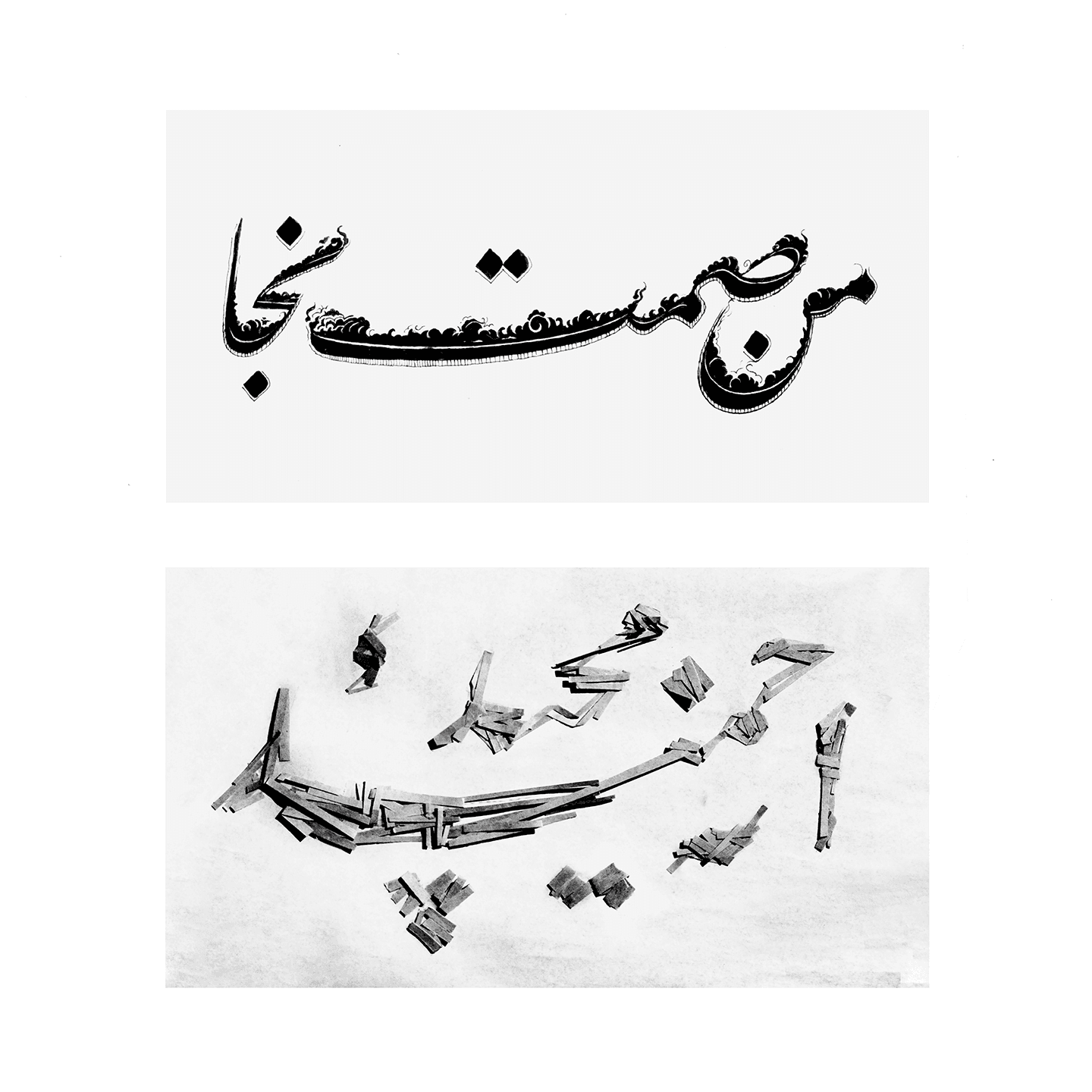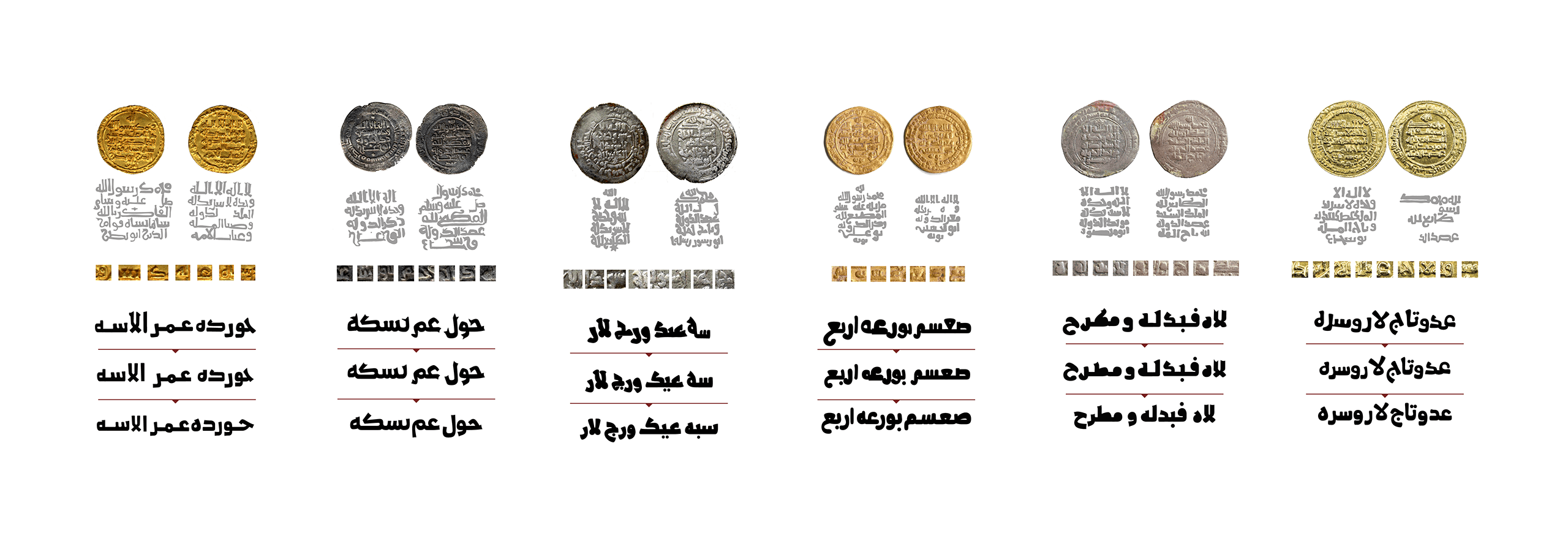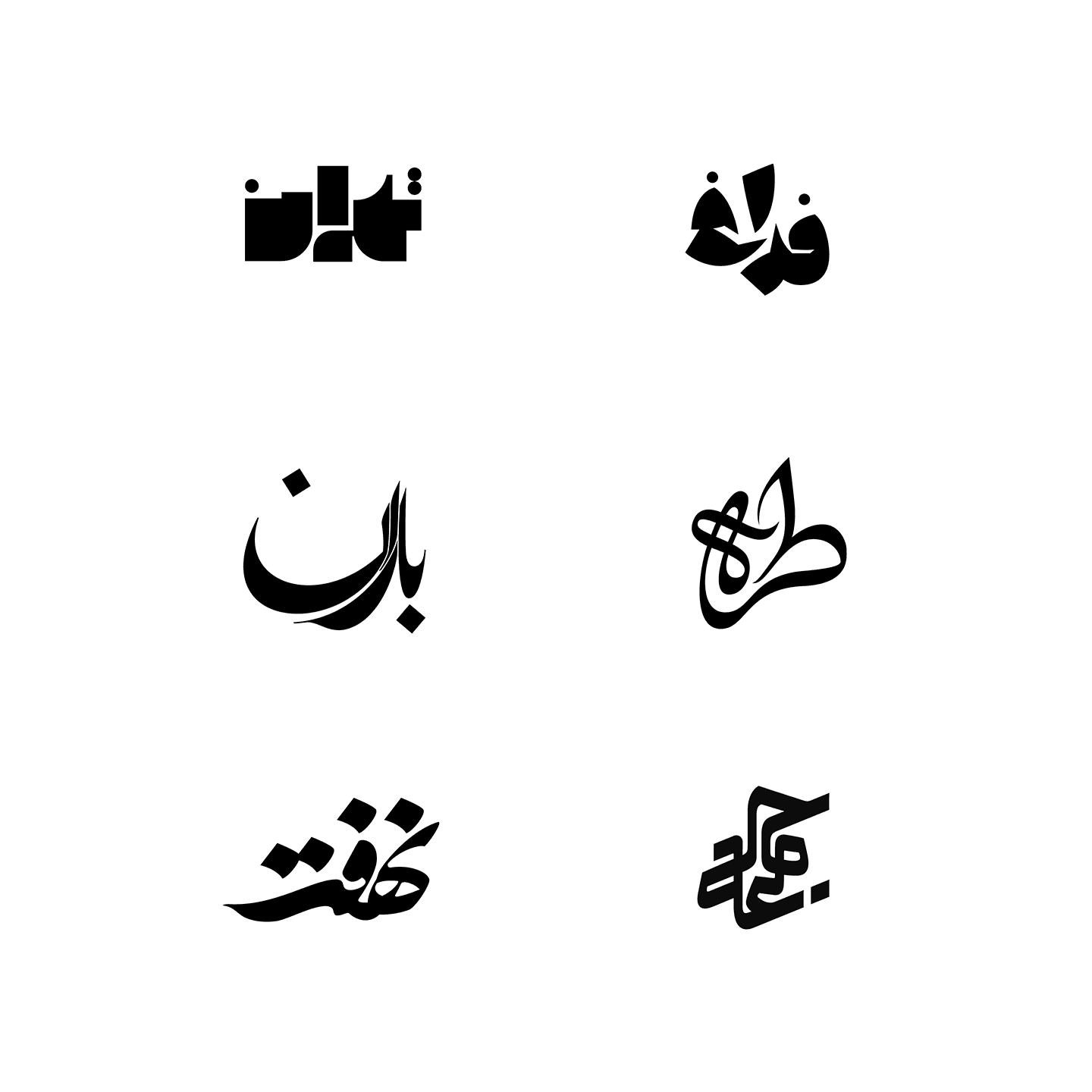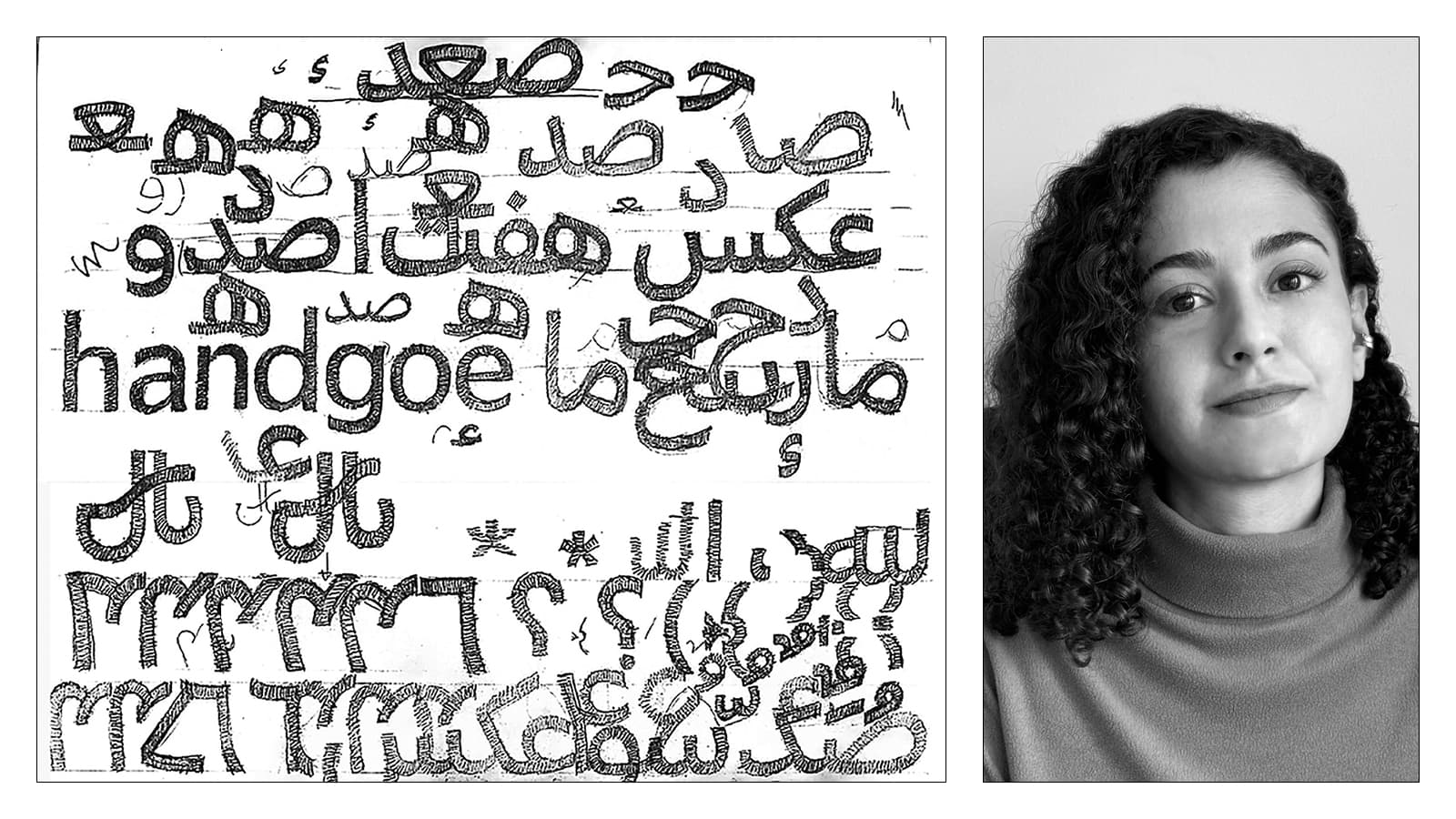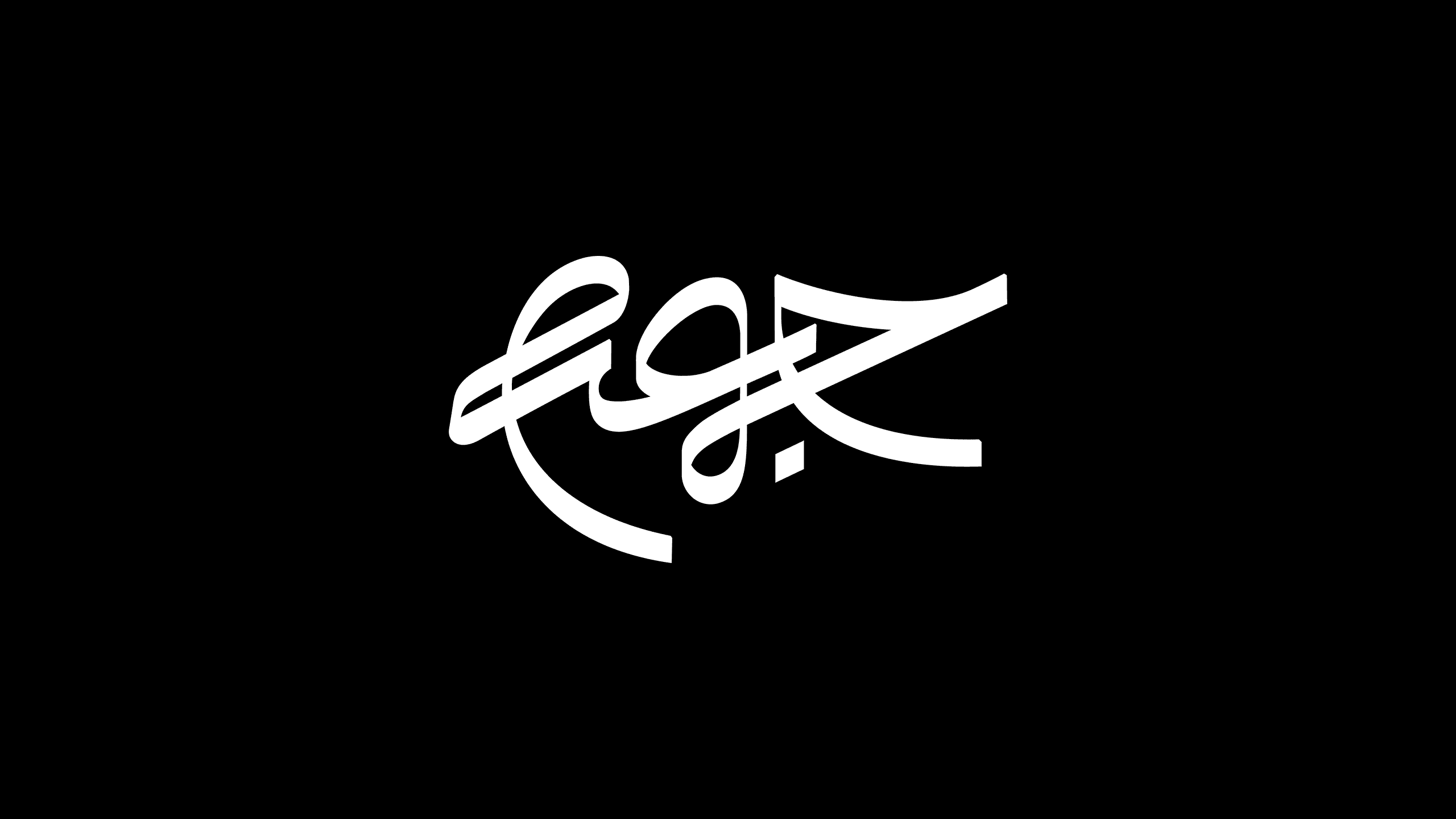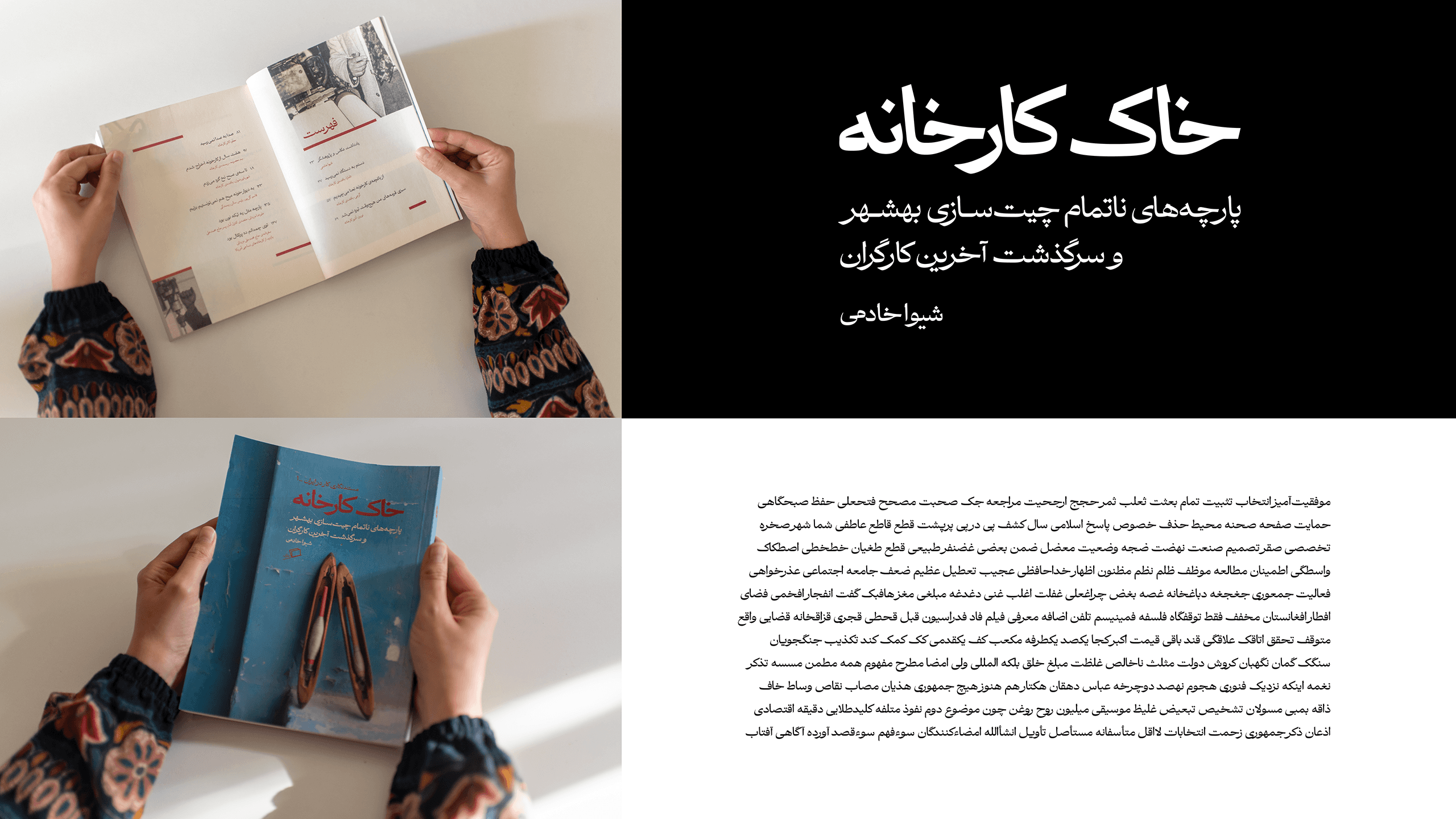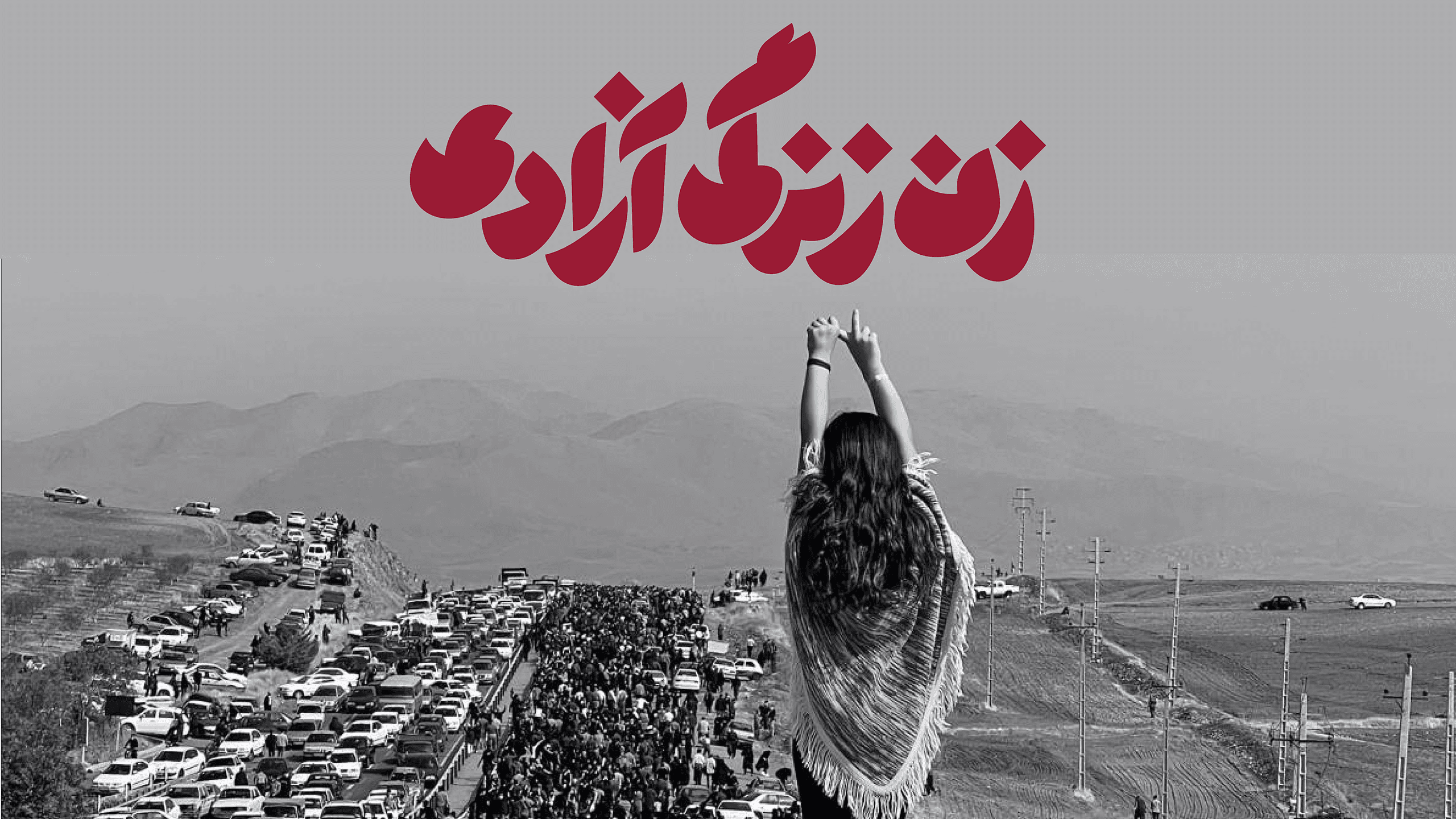
2024 marks the fifth anniversary of The Malee Scholarship, and we couldn’t be more excited to celebrate this milestone than with this year’s recipient, Maryam Golpayegani!
Maryam shares her story of growing up in Tehran, Iran, and the complexities of balancing her deep love and pride for her country with the political challenges it faces. Despite these difficulties, her positivity and ambition remain unwavering. Since discovering type design years ago, Maryam has relentlessly pursued her dream of becoming a full-time type designer.
Maryam Golpayegani is a graphic designer and type designer from Iran. While studying Graphic Design at the University of Tehran, her interest in Arabic calligraphy deepened, particularly in the Nastaliq style, which she practiced with the help of her university professor Sedaghat Jabbari. After graduating, she secured an internship in type design with Bahman Eslami, where she gained technical skills and learned about the process of designing typefaces. She now assists Eslamion in various type design projects and is working towards making type design her full-time profession, with a focus on Arabic type design.
We are so proud to recognize someone with Maryam’s talent and drive to preserve her culture’s typographic history. Her story and her mission are equally inspiring, and we have no doubt she will go far in her pursuits in type design. We are delighted to present her as our next Malee Scholarship recipient.
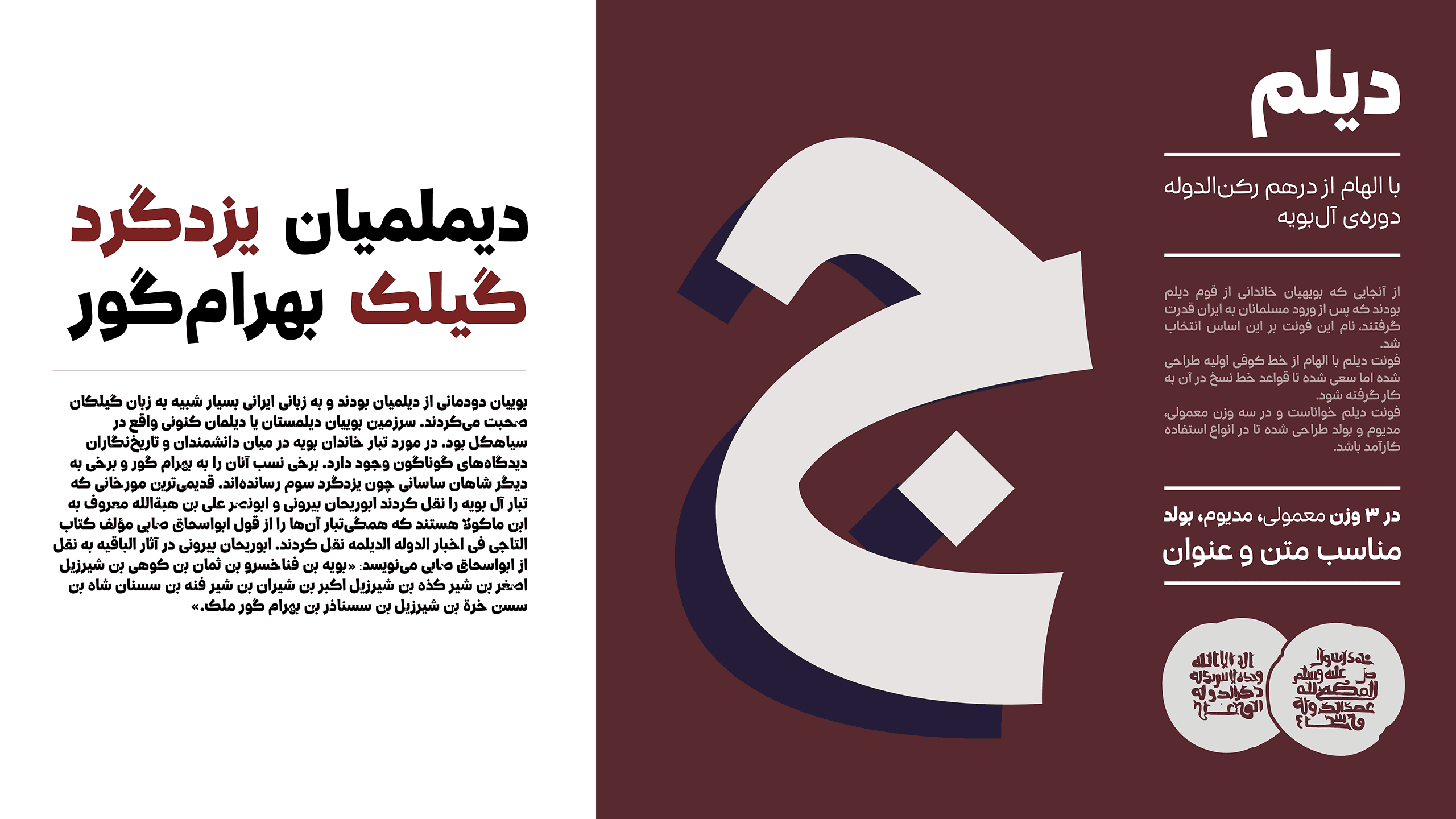
Malee Scholarship: When did you first get interested in letterforms?
Maryam Golpayegani: My interest in letterforms began in high school. I would often find myself trying to pay extra attention to my handwriting and layouting my notebooks during classes, It wasn’t just idle doodling; it was a creative escape. Even while making cheat sheets for exams, I tried to make them look appealing. That’s where my fascination with letters started, though I didn’t realize it would lead me to a career in type design.
I also remember that I found some bowls with arabic Inscriptions from Neishabur, Iran. The letterforms of Kufic calligraphy looked insane to me. I remember finding calligraphy in Iran in every shape was very interesting to me
Growing up in Iran has been a source of inspiration, and it is filled with the richness of Persian culture.
M.S.: Tell us a bit about your upbringing in Tehran. How does your background and upbringing shape who you are?
M.G.: I grew up in Tehran in a family that loved to travel. My father is an architect, so any time we traveled around Iran, we always ended up visiting mosques. He taught me to spend time observing the details—the tiles, the colors, the ornaments, and, of course, the scripts. My upbringing was filled with exposure to Persian art and culture. I had the chance to visit many museums and witness firsthand the Persian heritage that’s found in every corner of Iran. All these experiences deeply shaped my visual understanding and sensitivity toward form, which naturally influenced my love for letters.
The beauty and diversity of Arabic script is something I take pride in, seeing it as an artistic treasure to preserve and innovate through type design.
M.S.: How does your background and upbringing shape who you are and inform your approach to type design?
M.G.: I was always projected of diffrences and diversity of Arabic script. I believe Iranians, as people who use arabic script, but have a diffrent language, are always trying to break the isolation that is caused by their government and the world. We have our culture, we are proud of it, we love it, and we want to show it to people. I think there is still not enough weight for Persian approach to type desin in arabic script that needs to be filled. One of the ways I love the persian calligraphy is Nastaliq style. It’s full of round forms with a lot of variations for the letterforms. It is amazing how rich the amount of manuscript we have in Persian Nastaliq. It is found in museum stuff such as folios, calligraphies, Siah Mashq (meaning “black practice.” it is a calligraphic practice sheet often covered completely with letters.) and also daily life such as newspaper ads, shop signs, a verse of a poetry. It is everywhere but at the same time, it isn’t developed enough.
I was always aware of Nastaliq calligraphy seeing it everyday in my life, it wasn't until university that I had the chance to study it more seriously. Sedaghat Jabbari helped me to have a better understanding of Nataliq. His mentorship refined my understanding of letterforms and craft, shaping my process and approach to type design. I’m driven to highlight the Persian style of viewing and using letters within the broader Arabic script landscape, exploring and sharing the untapped calligraphic heritage found in Persian manuscripts and architecture.
M.S.: What has been a transformative experience for you in your creative path that led you to type design?
M.G.: Studying graphic design and Nastaliq calligraphy in the university of Tehran with Professor Sedaghat Jabbari was a transformative experience for me. It marked my first serious exploration of my culture's letterforms. Through this study, I learned to appreciate and learn about the letters, which ultimately guided me toward type design. After developing an interest in letterforms, I began experimenting with them, and with the help of the type design community, I was able to explore further.
Additionally, my internship with Bahman Eslami greatly contributed to my growth in this field, refining both my visual and technical understanding. Throughout my time working with him, I gained valuable insights that deepened my comprehension of type design.
M.S.: What have been the benefits and challenges of growing up in Iran, and how has that impacted your career path? How do you feel that type design can positively impact your community?
Ultimately, my dream is to become a full-time type designer, where I can design fonts, learn about font engineering, and researching within the field. I want to explore the intersection of Persian and Arabic scripts while also raising awareness of their richness and diversity on a global scale. By doing so, I hope to contribute to a more inclusive understanding of typography and inspire others to appreciate the beauty in our diverse scripts. I want to create typefaces that not only celebrate our heritage but also connect with contemporary design. I am excited about the possibilities that lie ahead and I am curious to see how I can grow and contribute to this vibrant community.